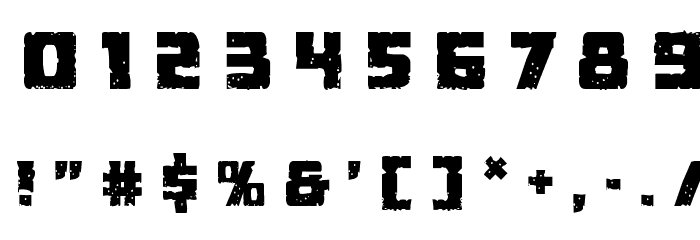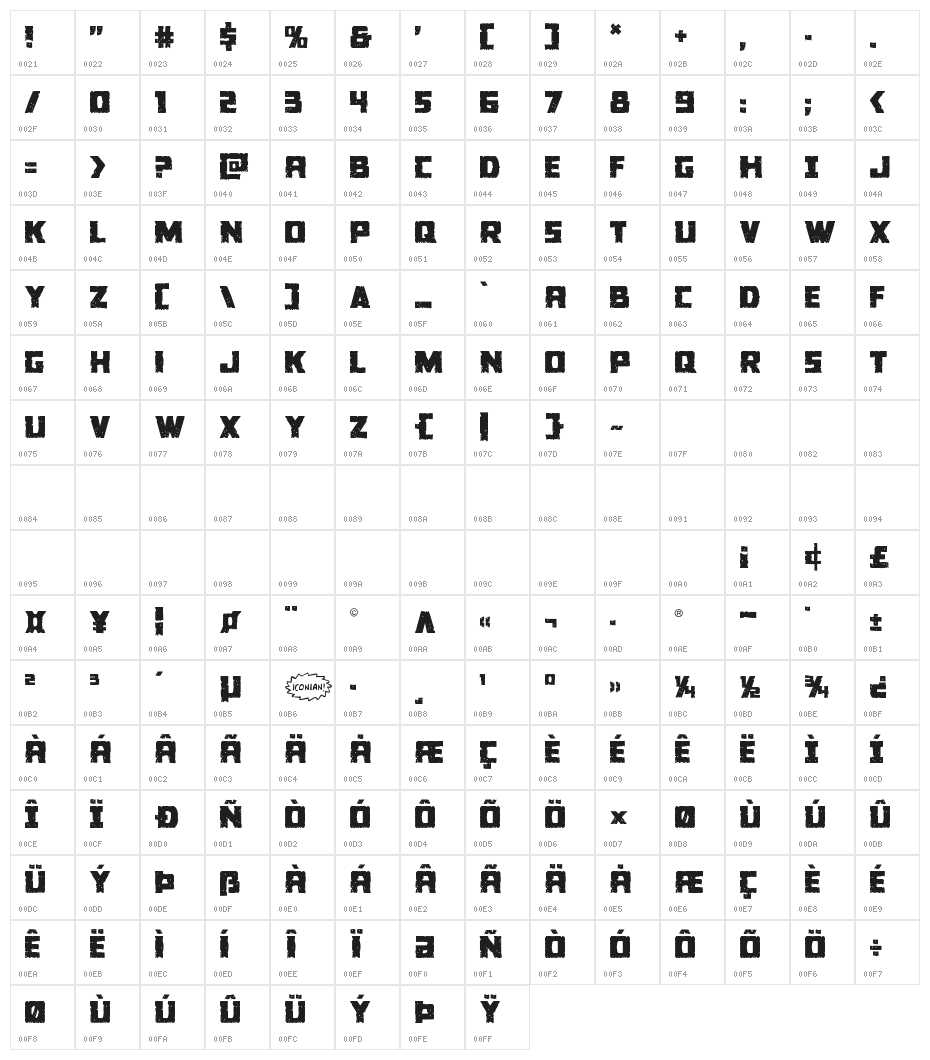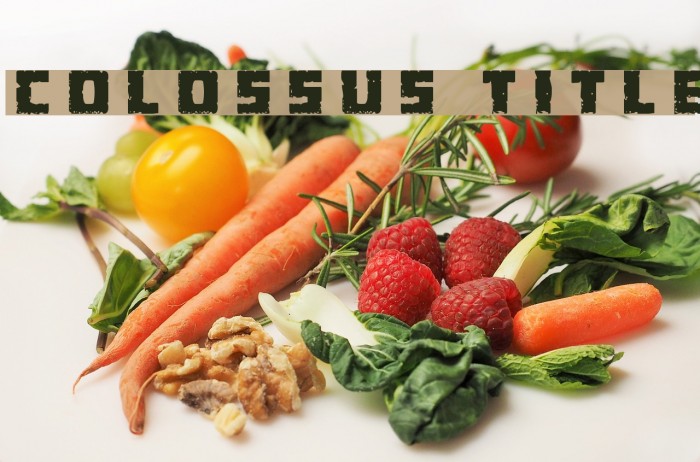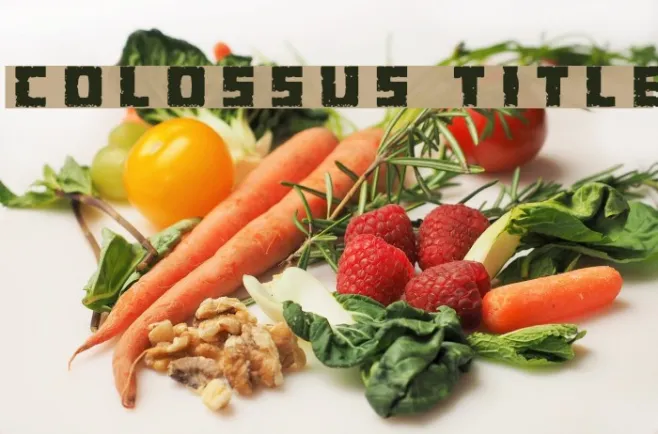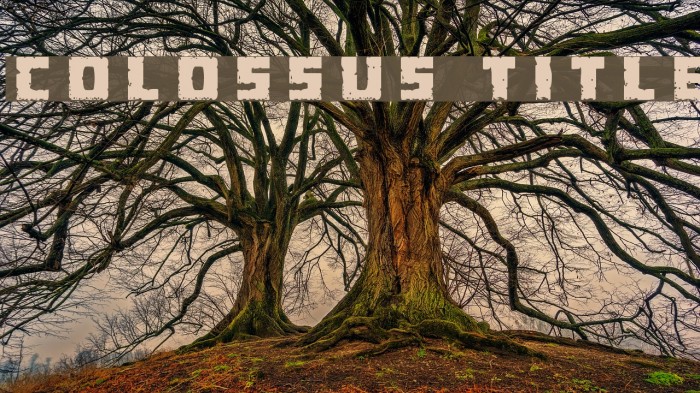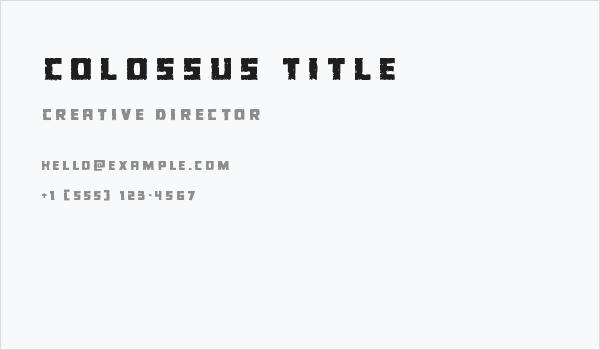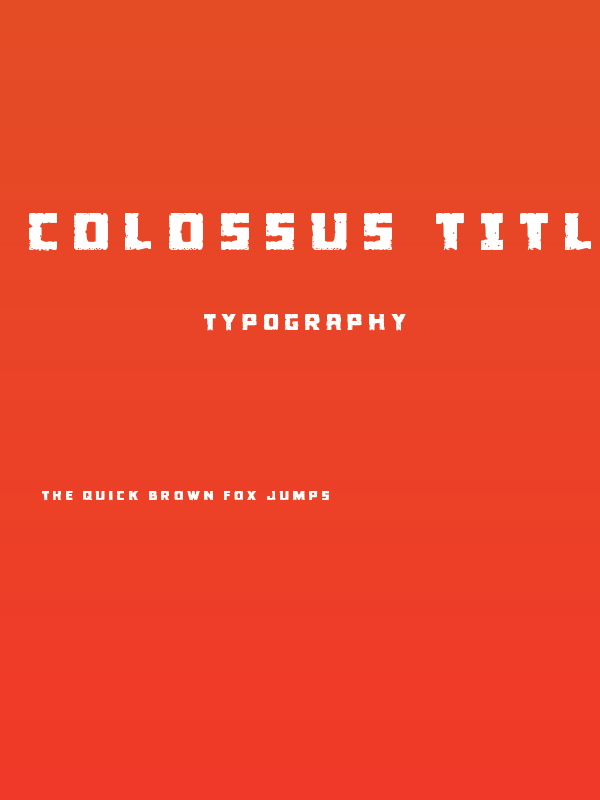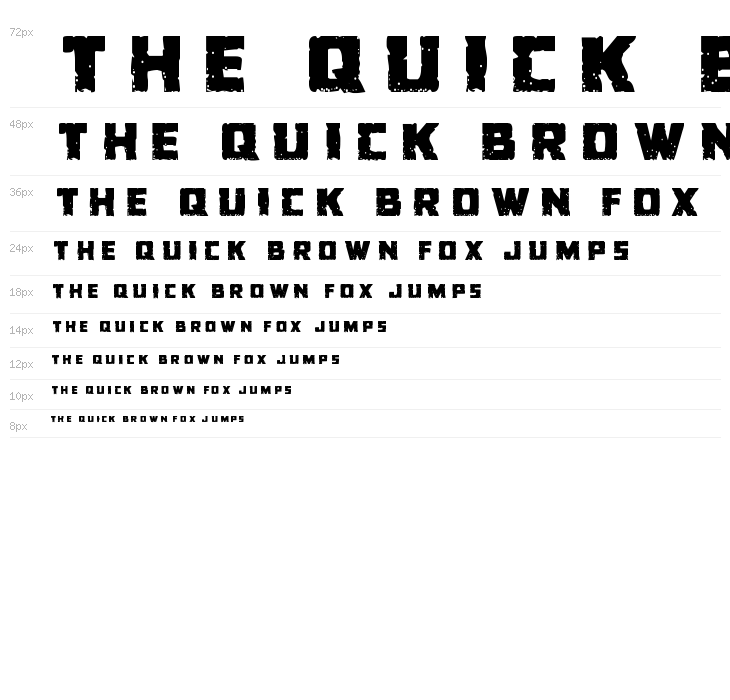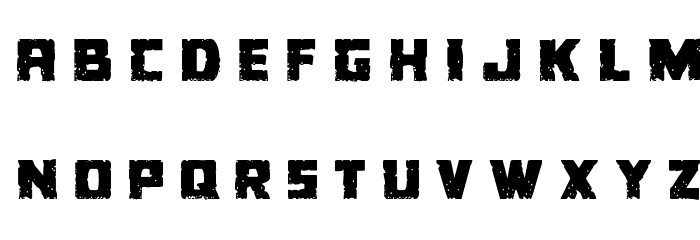
Colossus Title Font
Colossus Title Description
This font features a bold and rugged design with a distressed texture that gives it a worn, vintage appearance. The characters are blocky and robust, with a consistent thickness throughout, adding to its strong and impactful presence. The texture within each letter creates a sense of depth and character, making it ideal for projects that require a bold statement. The uppercase and lowercase letters maintain a uniform style, ensuring consistency across different text applications. The numerals and special characters are designed to match the overall aesthetic, providing a cohesive look.
| Proposed Projects | Ideal for posters, logos, branding, and headlines that require a strong, vintage look. |